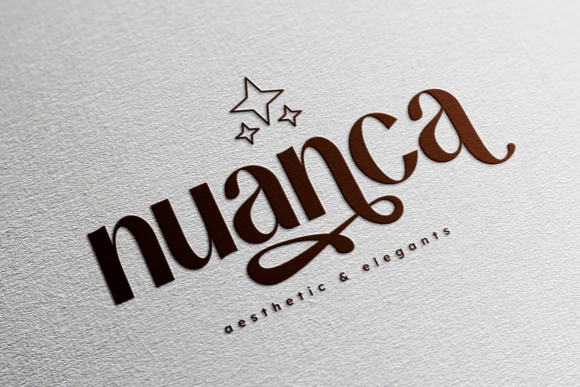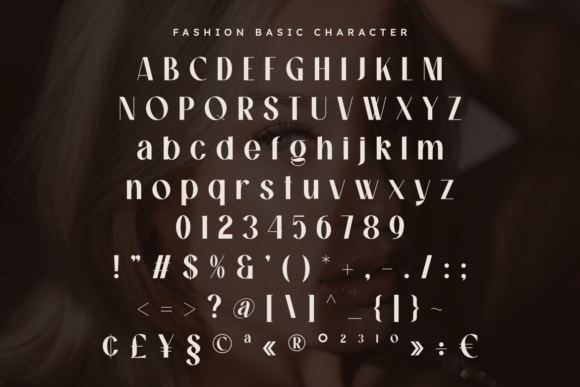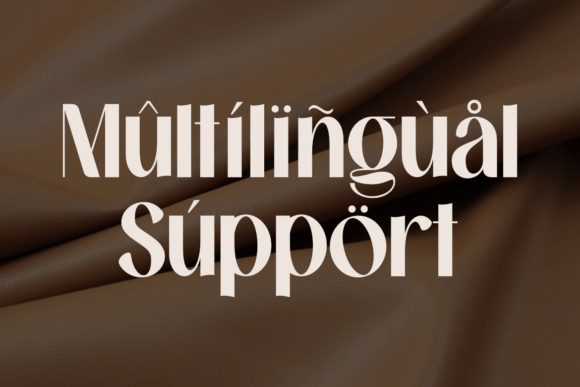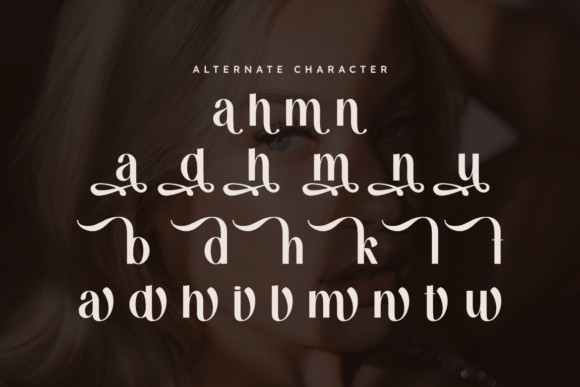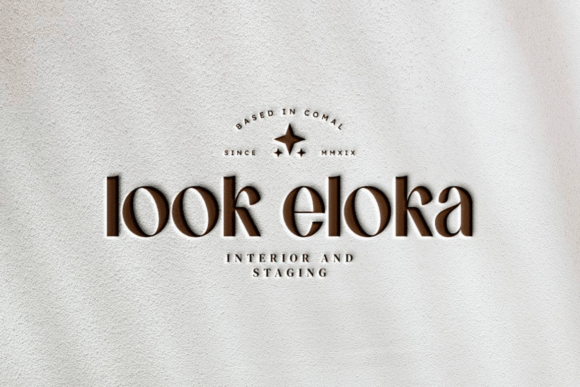
Introducing Fashiun Font: The Epitome of Elegance and Style
In the world of fashion design, the right typography can make all the difference. A font can elevate a brand from ordinary to extraordinary, conveying sophistication, luxury, and style. This is where Fashiun Font comes in – a modern classic sans serif font that embodies the perfect blend of sleek minimalism and luxurious curves. Designed specifically for fashion branding and high-end design, Fashiun Font is the ultimate choice for designers and crafters who want to create stunning visual identities.
The Design Philosophy Behind Fashiun Font
Fashiun Font was crafted with a clear vision: to create a typeface that exudes elegance, sophistication, and style. Its design is characterized by elegant ligatures, sharp contrast, and tasteful swashes, making it perfect for fashion labels, premium packaging designs, and timeless brand experiences. The font’s sleek and minimalist aesthetic ensures that it remains versatile, while its luxurious curves add a touch of sophistication.
Key Features of Fashiun Font
- Elegant Ligatures: Fashiun Font features beautiful ligatures that connect letters in a smooth and flowing manner, creating a sense of continuity and harmony.
- Sharp Contrast: The font’s sharp contrast between thick and thin lines adds depth and visual interest, making it perfect for headlines and titles.
- Tasteful Swashes: Fashiun Font’s swashes add a touch of luxury and elegance, allowing designers to add a decorative flourish to their designs.
Perfect for Fashion Branding and Design
Fashiun Font is specifically designed for fashion branding and high-end design. Its modern classic aesthetic makes it perfect for:
- Fashion Logos: Create stunning logos that exude elegance and sophistication.
- Branding Design: Develop a consistent brand identity that reflects your brand’s values and aesthetic.
- Packaging Design: Elevate your packaging design with a font that conveys luxury and style.
- Editorial Headlines: Use Fashiun Font to create eye-catching headlines that grab attention.
- Luxury Boutique Identity: Create a sophisticated brand identity for your luxury boutique.
- Upscale Clothing Tags: Add a touch of elegance to your clothing tags with Fashiun Font.
- Social Media Kits: Create stunning social media kits that reflect your brand’s style and aesthetic.
Why Choose Fashiun Font?
Fashiun Font is the perfect choice for designers and crafters who want to create stunning visual identities for fashion brands. Here are just a few reasons why:
- Unparalleled Elegance: Fashiun Font exudes elegance and sophistication, making it perfect for high-end fashion brands.
- Versatility: The font’s sleek and minimalist aesthetic ensures that it remains versatile, making it perfect for a wide range of design applications.
- Instant Sophistication: Fashiun Font adds instant sophistication and allure to any design, making it perfect for designers who want to create stunning visual identities.
In conclusion, Fashiun Font is the ultimate choice for designers and crafters who want to create stunning visual identities for fashion brands. Its modern classic aesthetic, elegant ligatures, sharp contrast, and tasteful swashes make it perfect for fashion branding and high-end design. With Fashiun Font, you can create stunning logos, branding designs, packaging designs, and more that exude elegance, sophistication, and style.